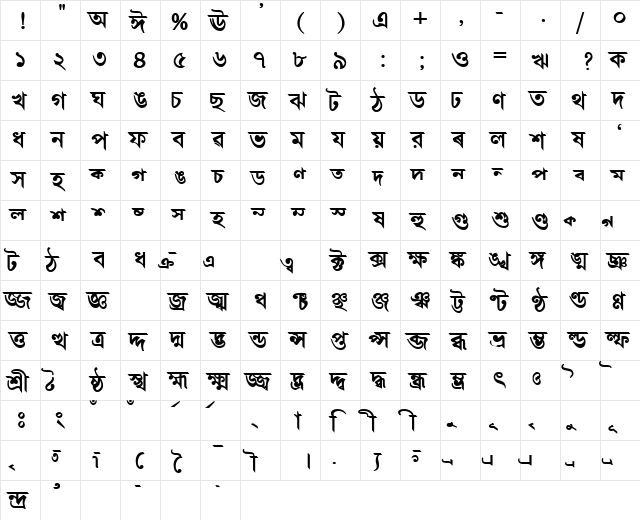
AkrutiBngBharati Bold
Design Context for AkrutiBngBharati Typeface
AkrutiBngBharati offers clean, dependable letterforms without strong stylistic allegiance, making it a practical choice for designers who need flexibility. The heavy weight commands attention and anchors typographic hierarchies.